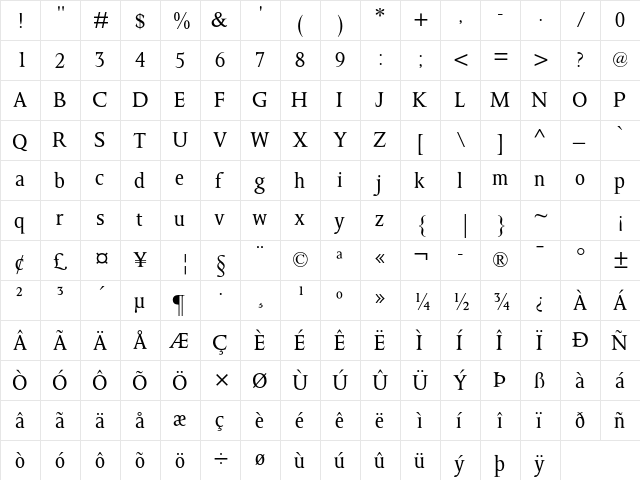
Octavian MT Std Regular
| Designer | Will Carter, David Kindersley |
Design Context for Octavian MT Std Typeface
Octavian MT Std is a composed and adaptable typeface that performs quietly and consistently across a wide range of design contexts.